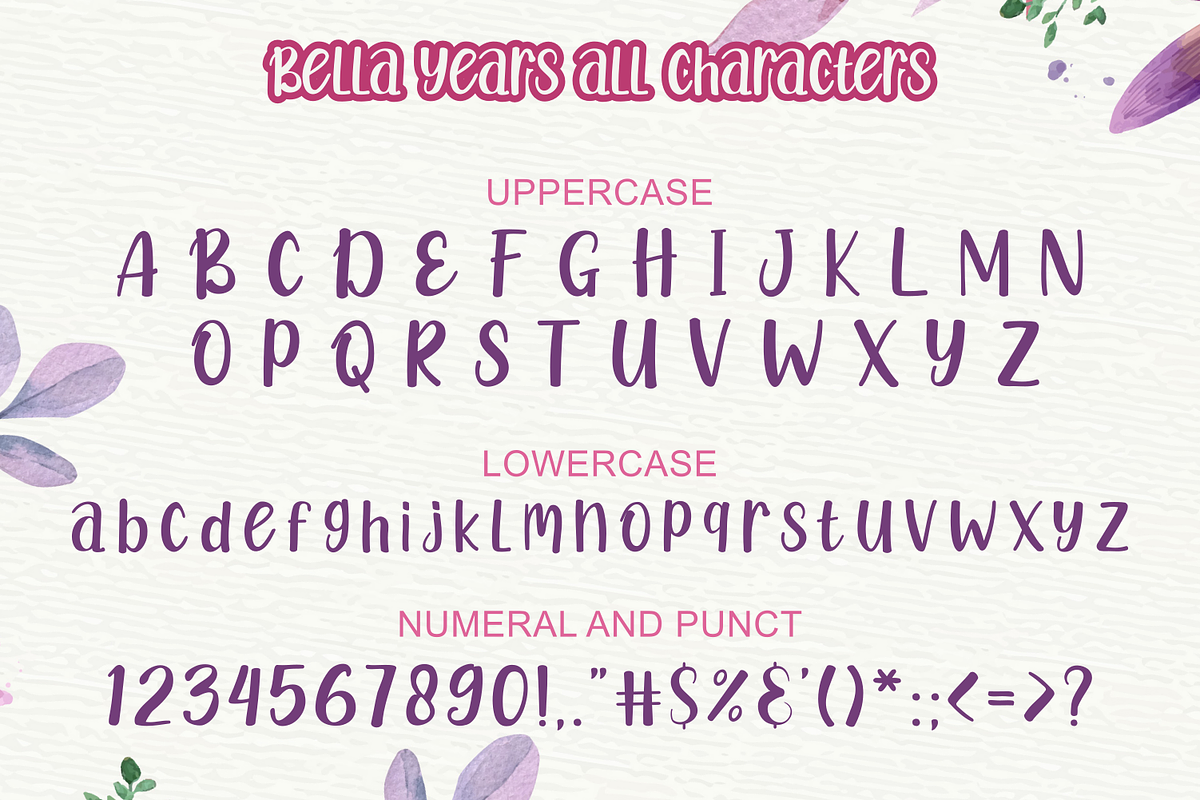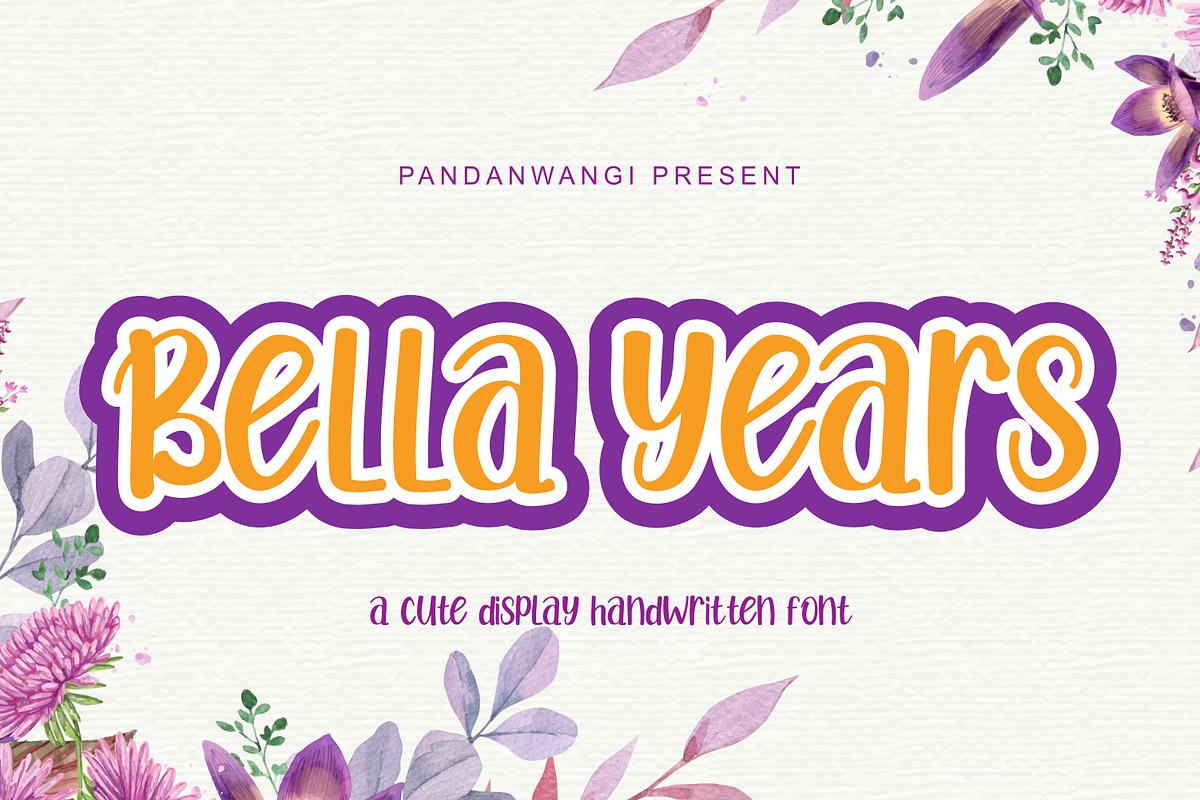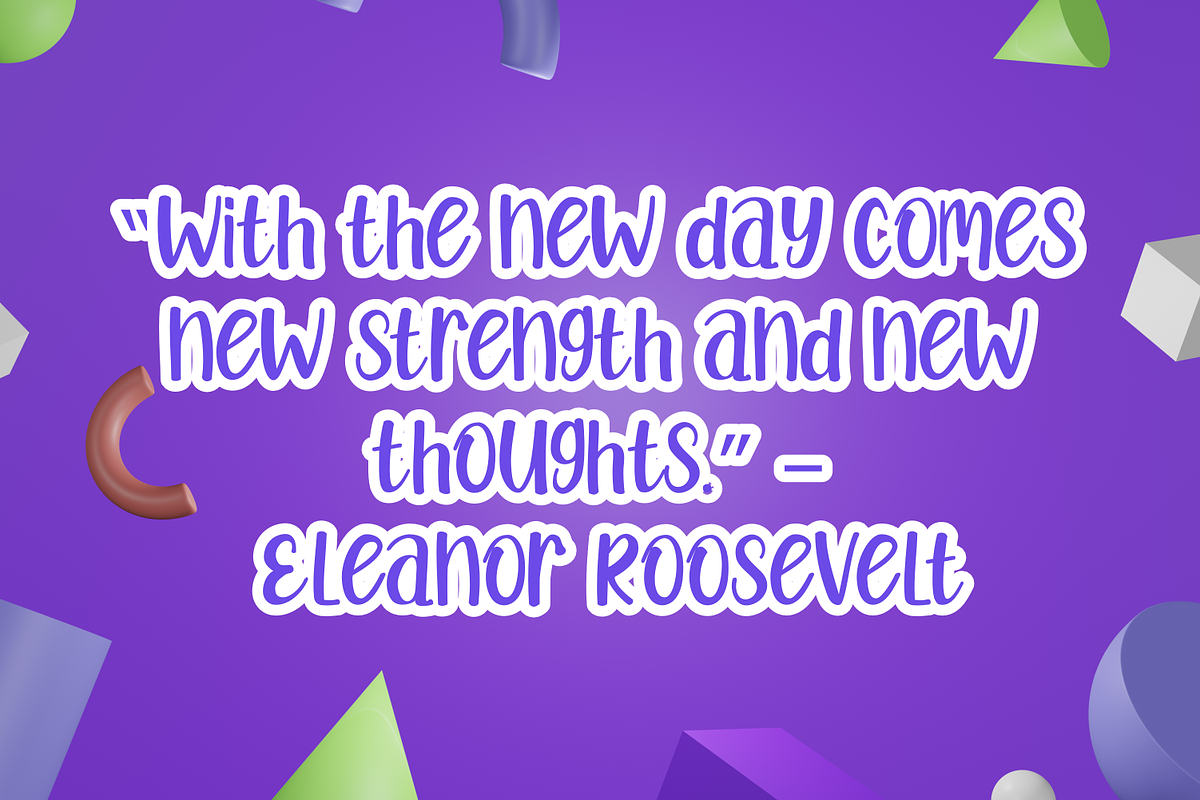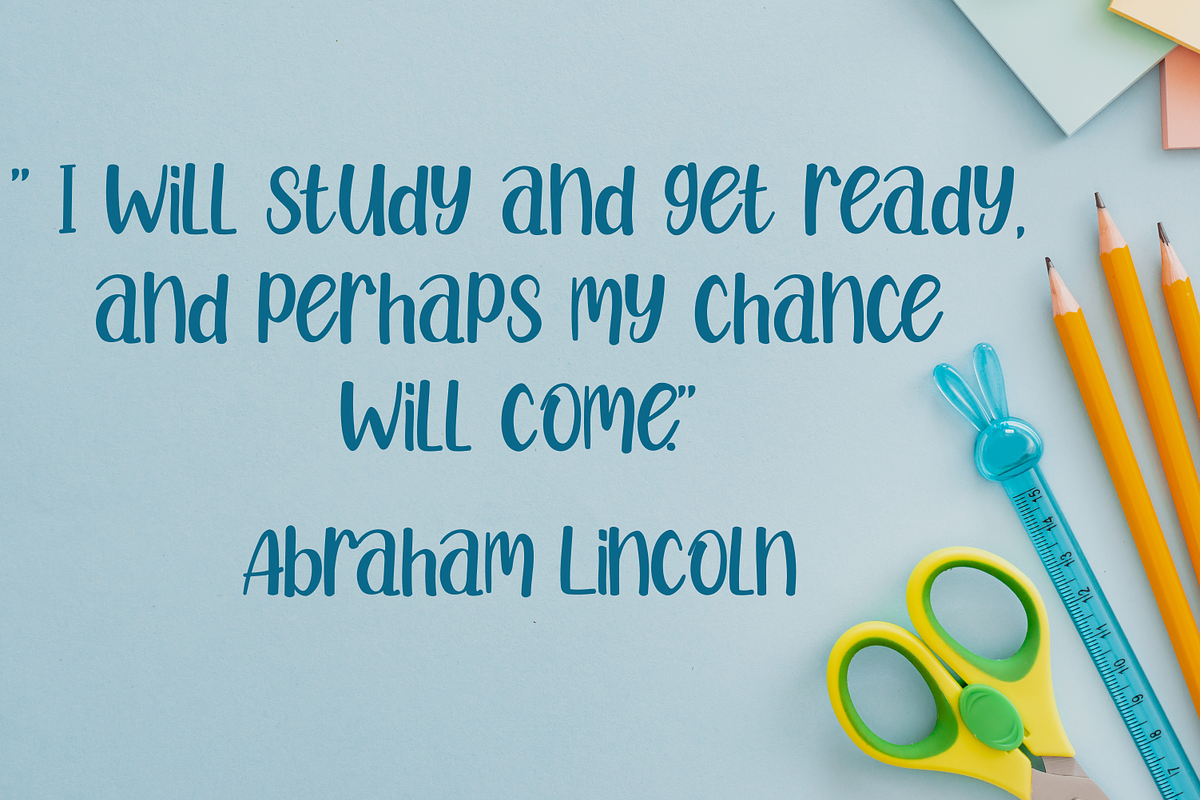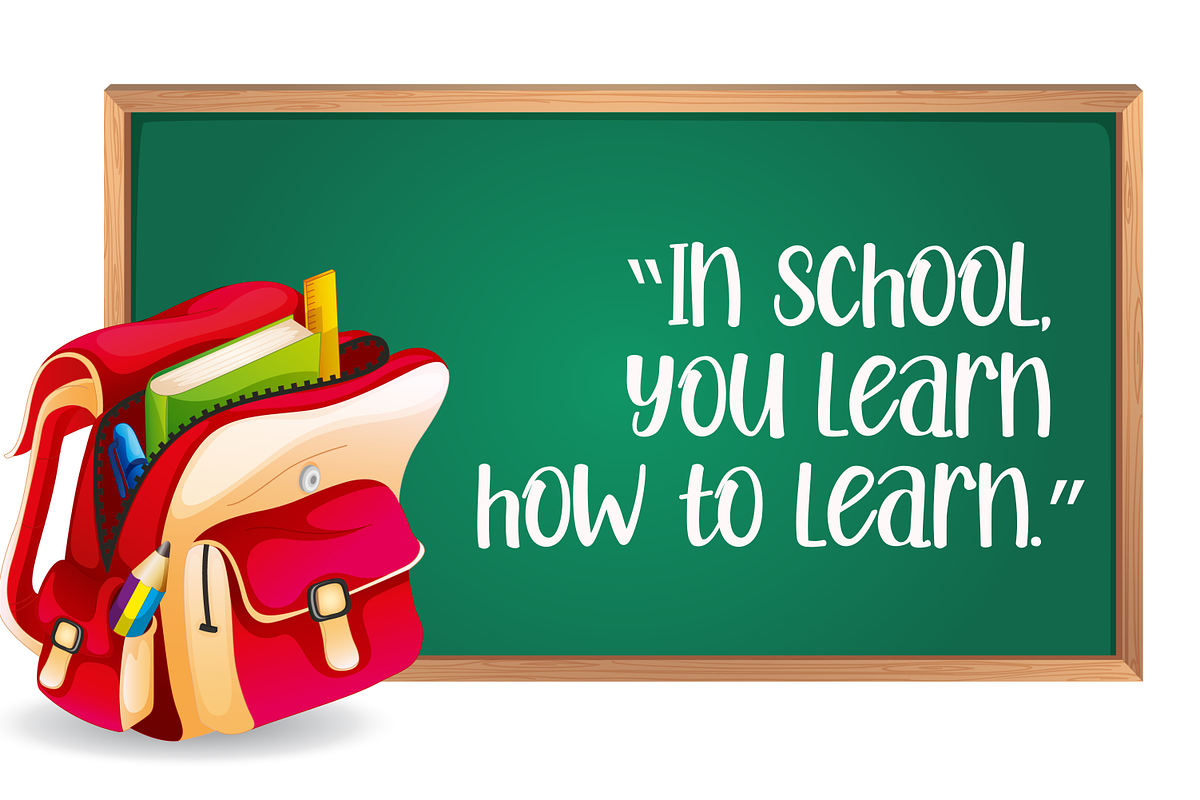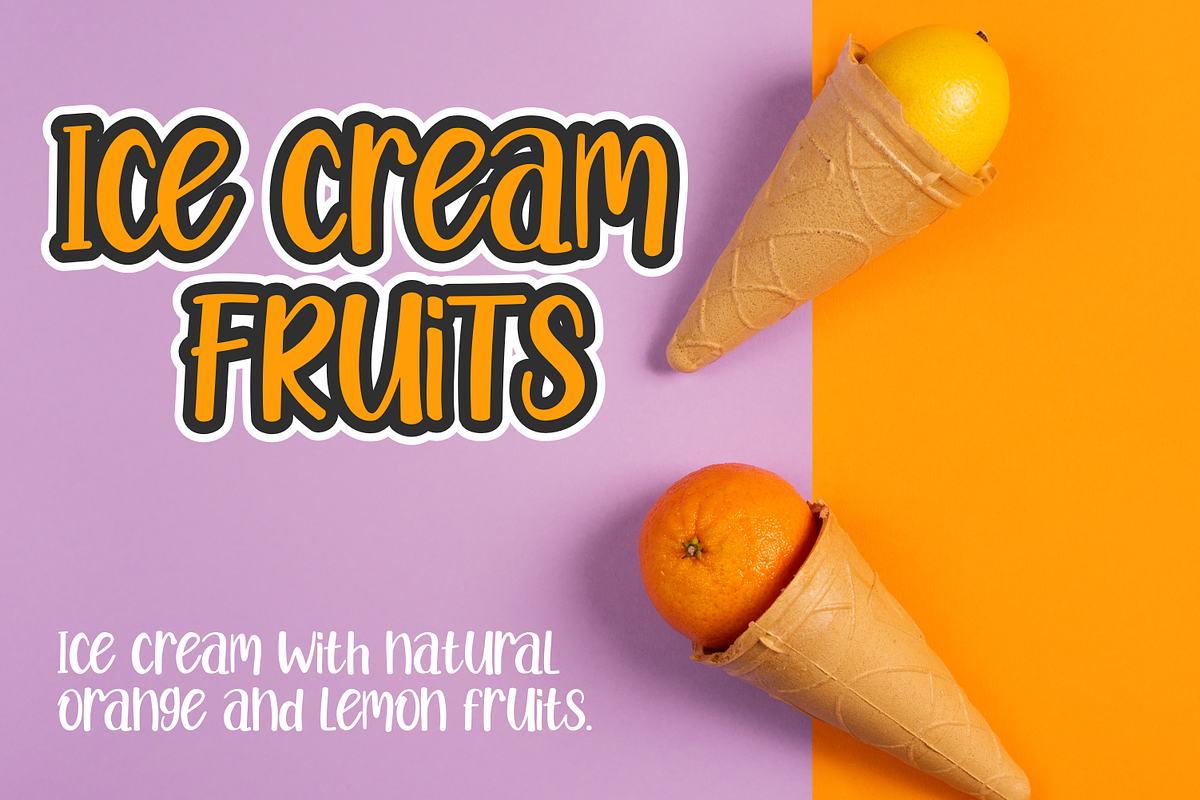
Bella Years - Cute Fun Display
Bella Years is a sweet and friendly handwritten font. This dazzling handwritten font will turn any creative idea into a standout. Its natural and unique style makes it incredibly fitting to a large pool of designs. Get inspired by its authentic feel and use it to make beautiful wedding invitations, beautiful stationery art, eye-catching social media posts, and cute greeting cards. The only limit is your imagination!